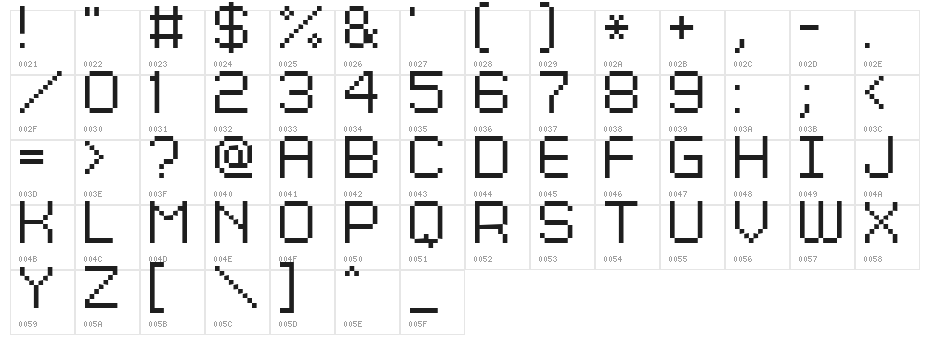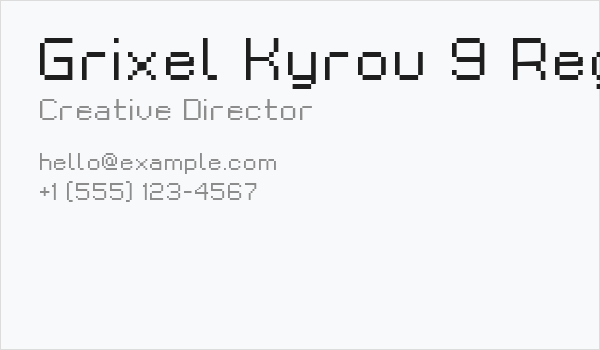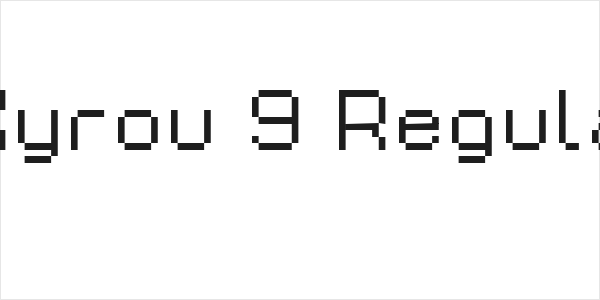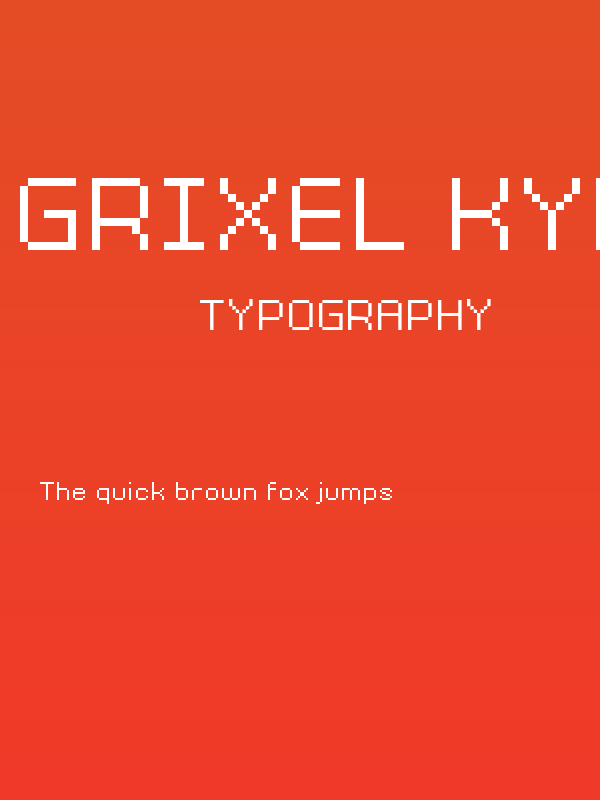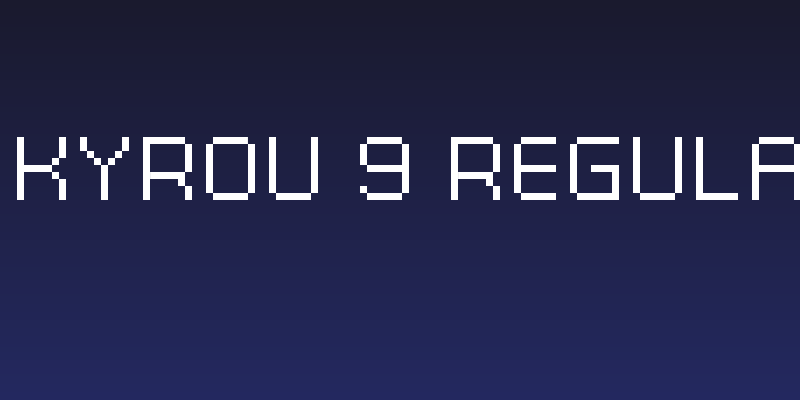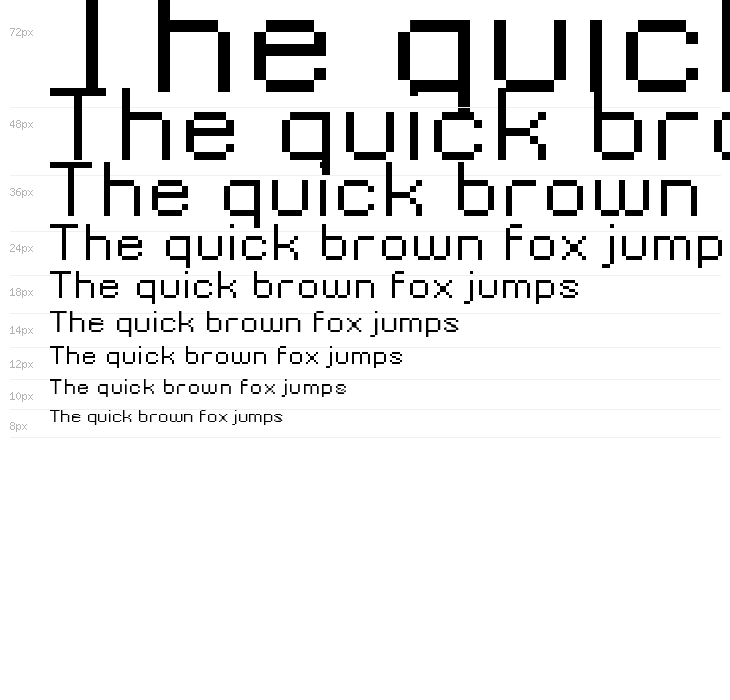
Grixel Kyrou 9 Regular Xtnd Font
Grixel Kyrou 9 Regular Xtnd Description
This font features a pixelated, grid-like design that is reminiscent of early digital displays and retro video games. Each character is constructed with a uniform grid pattern, giving it a blocky and geometric appearance. The uppercase and lowercase letters maintain a consistent height, while the numerals and special characters follow the same pixelated style. The font's simplicity and uniformity make it highly legible, even at smaller sizes. Its distinct digital aesthetic is ideal for projects that aim to evoke a sense of nostalgia or a retro-futuristic vibe.
| Overall Style | Retro, Digital |
| Use Case | Logos, Headlines, Digital displays |
| Proposed Projects | Ideal for retro video game designs, digital art projects, tech-themed posters, and any creative work that requires a nostalgic digital look. |